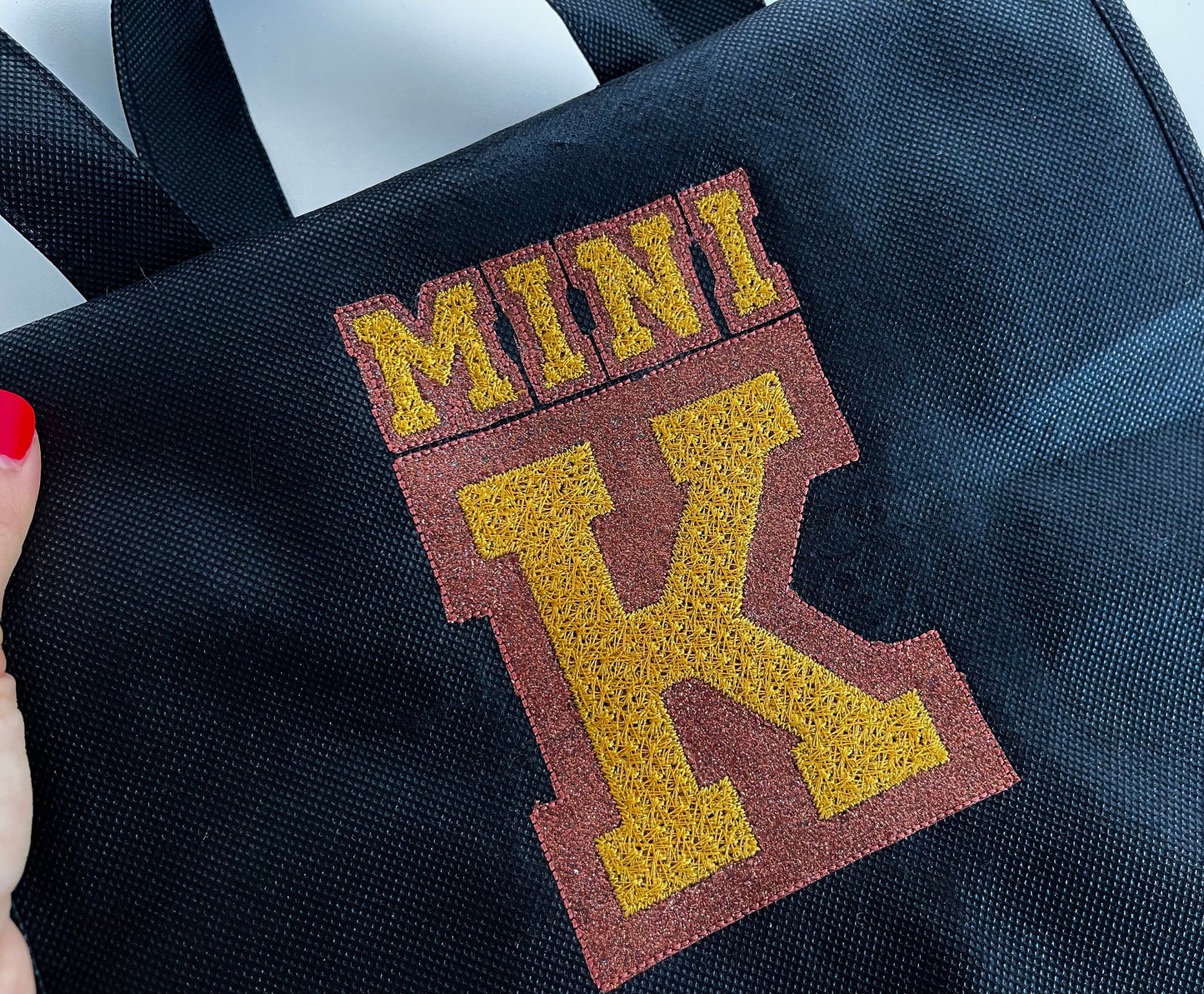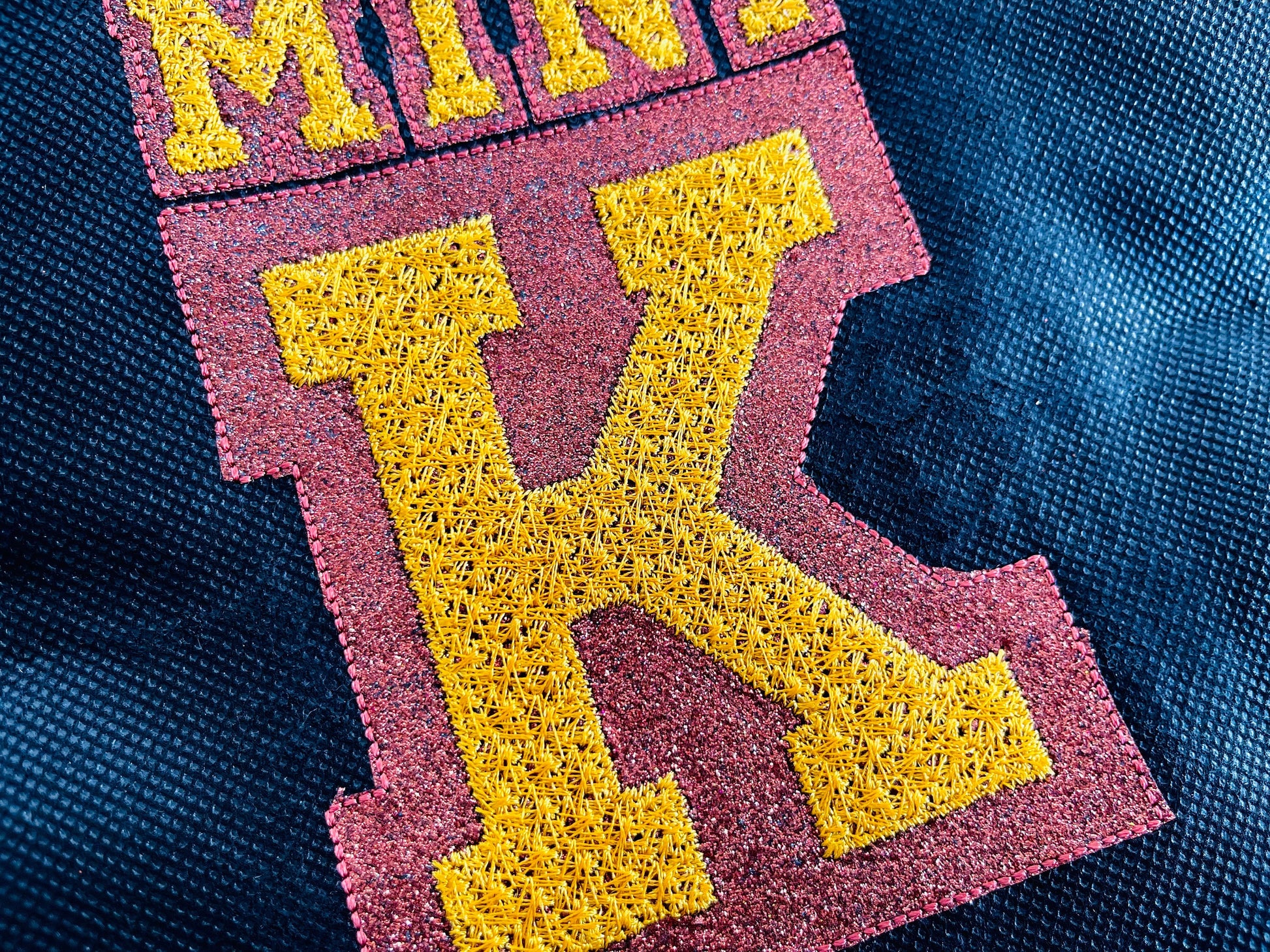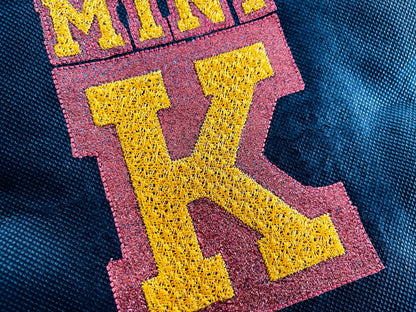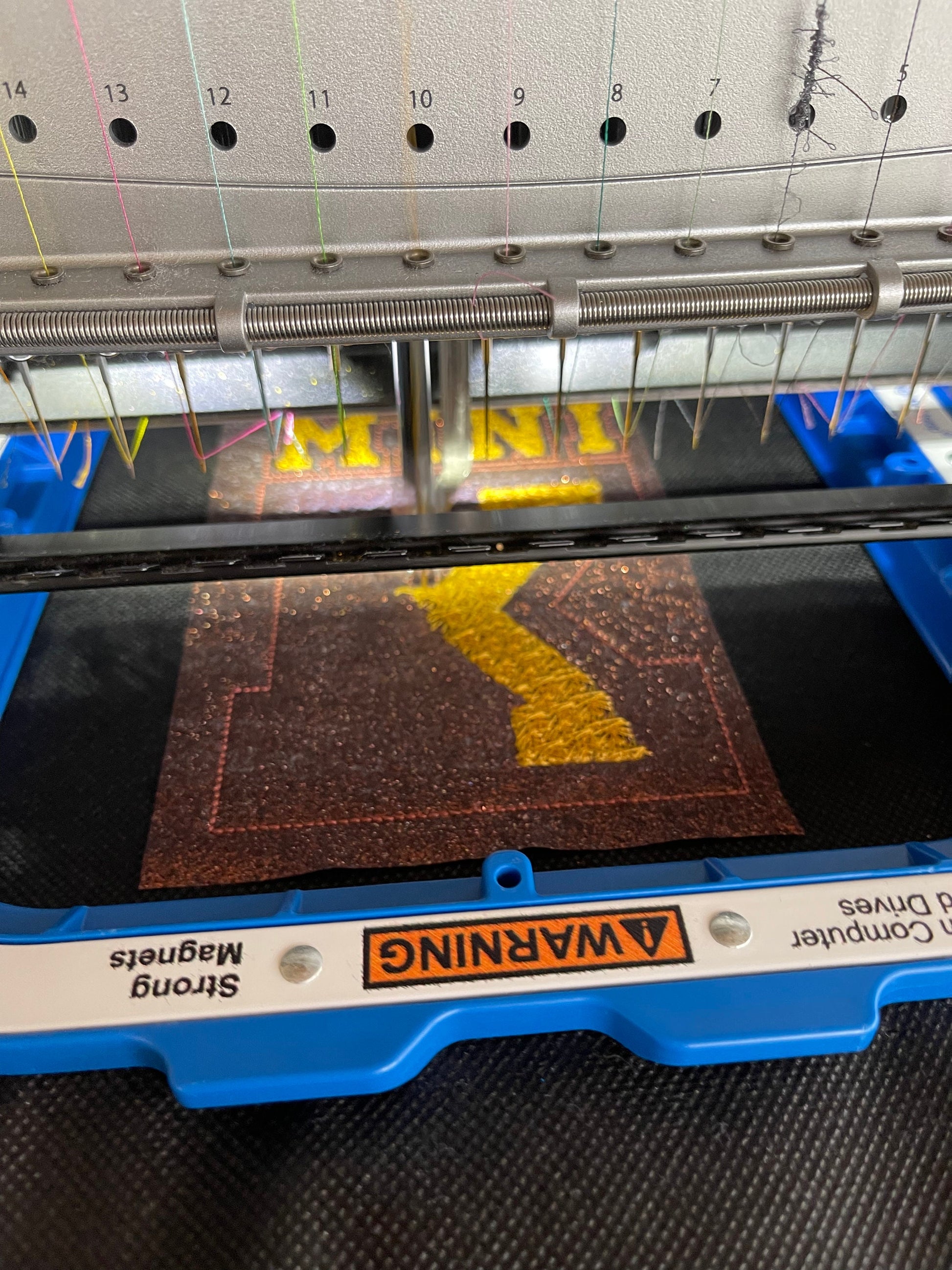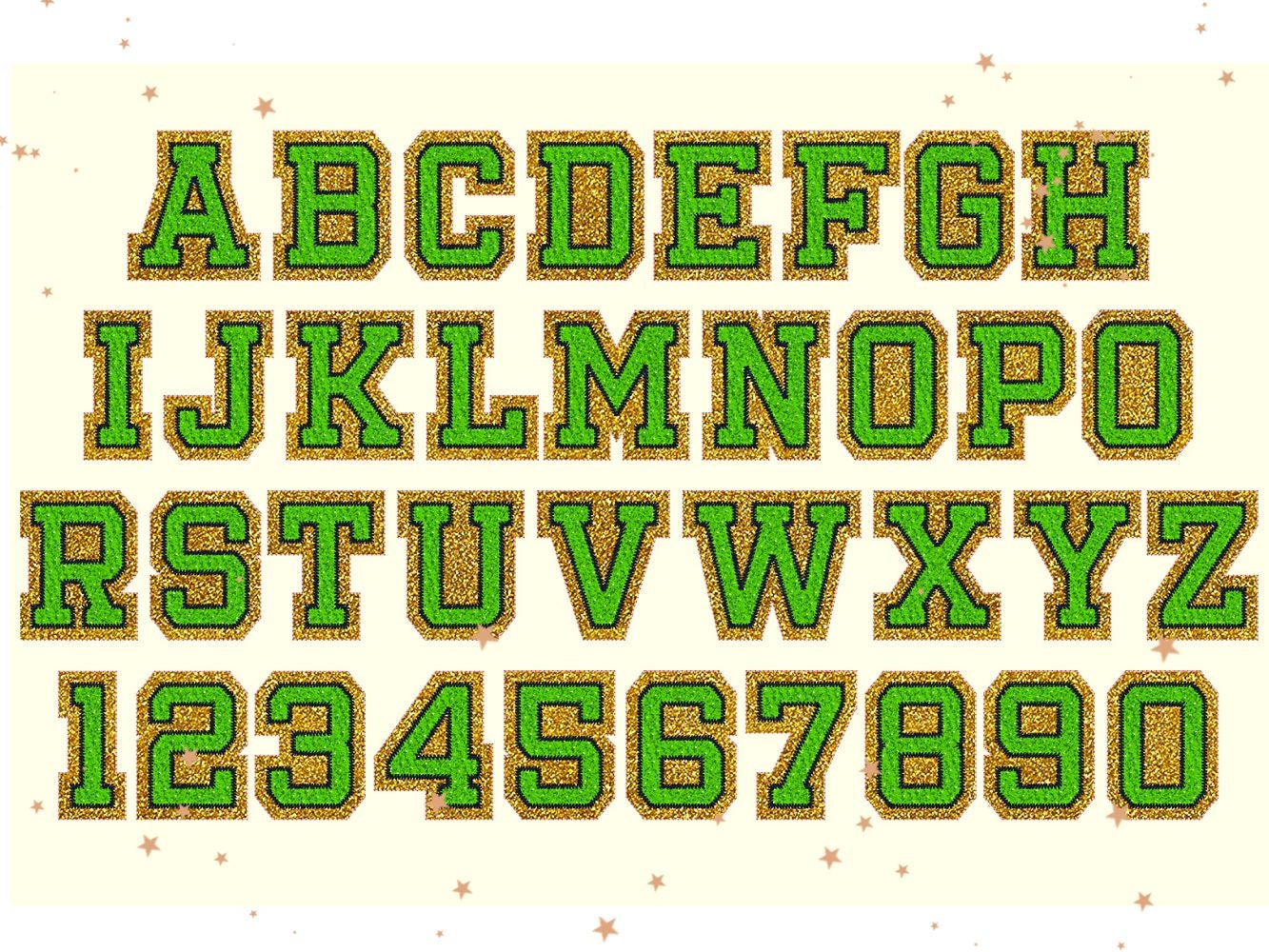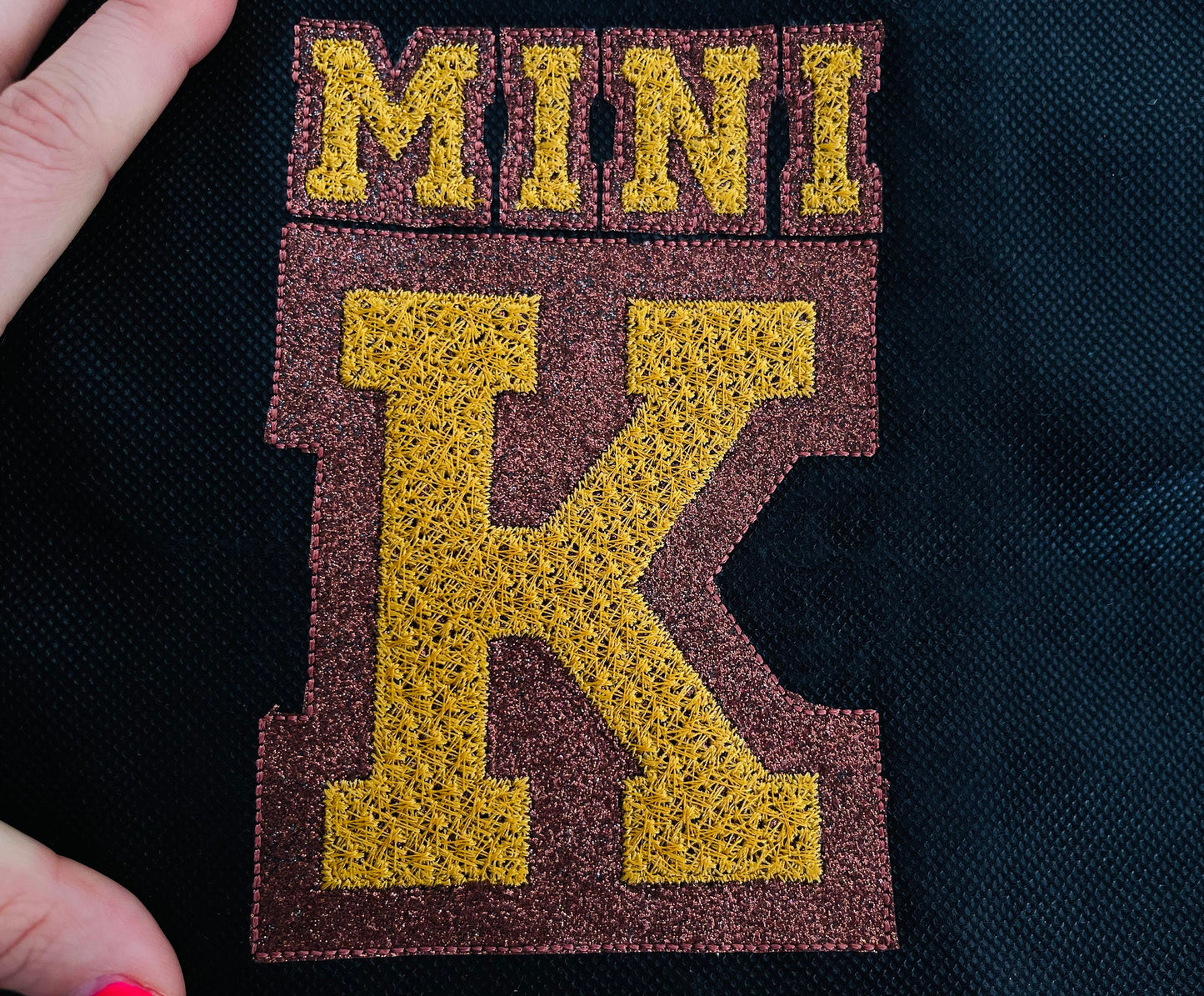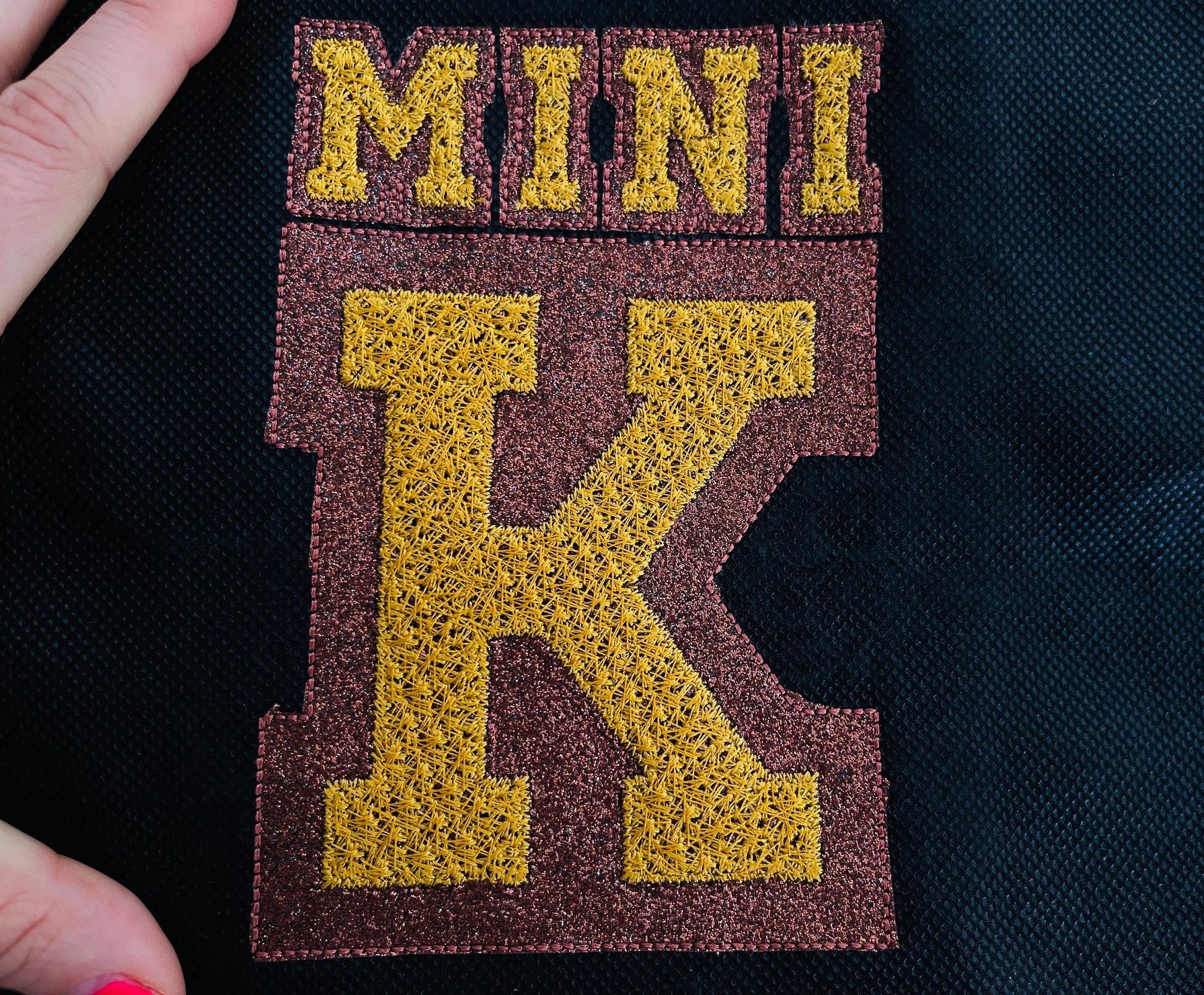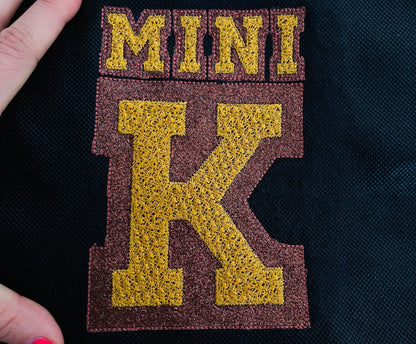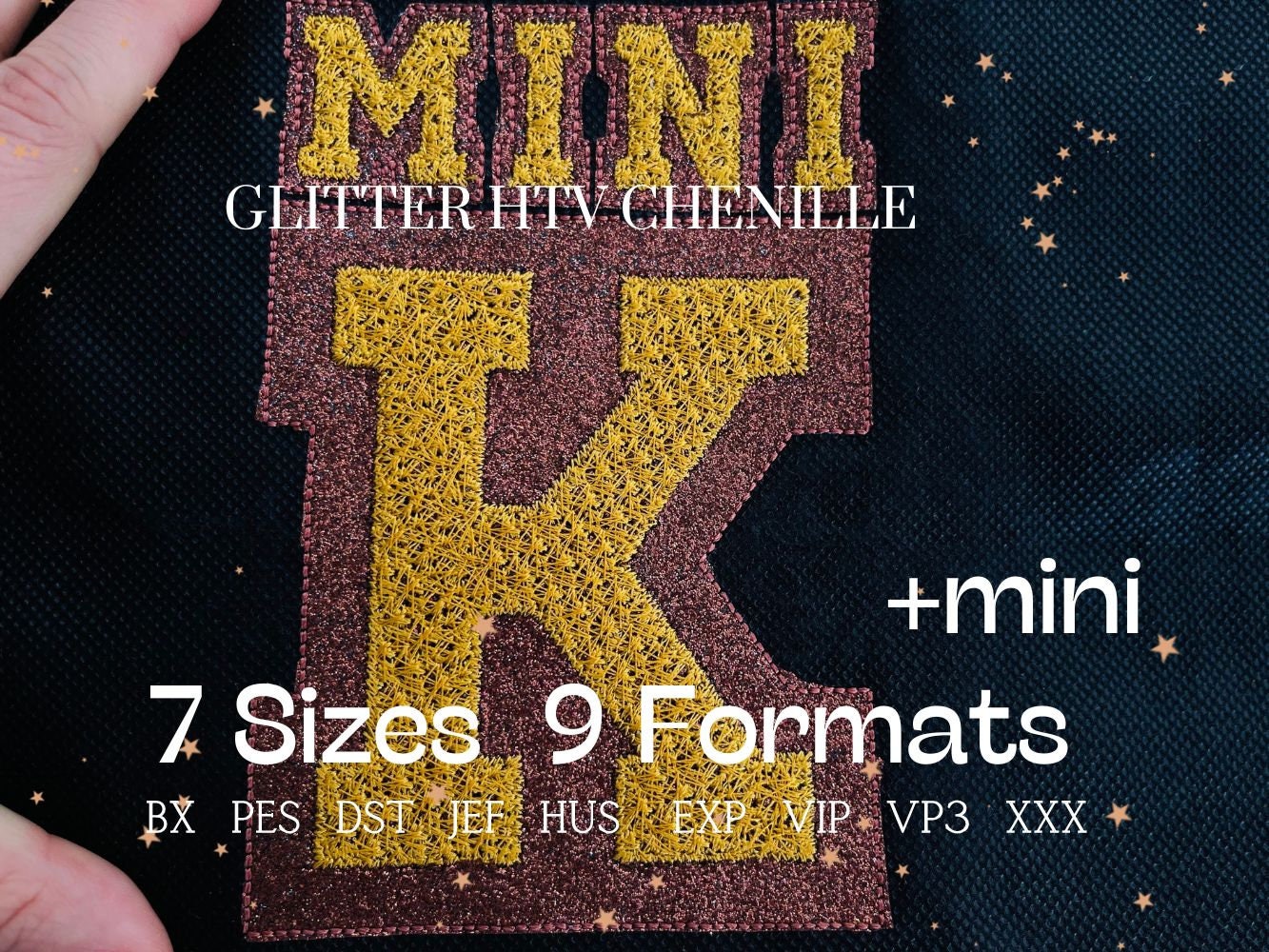
Or click to open the linkA narrow varsity font in two layers, made for glitter heat transfer vinyl or terry fabric. Sporty for team shirts, jerseys and school spirit wear.
Capital letters A to Z and numbers 0 to 9 in eight sizes: 1.2, 1.5, 2, 2.5, 3, 4, 4.5 and 5 inches. Two applique layers give a double outline sport look.